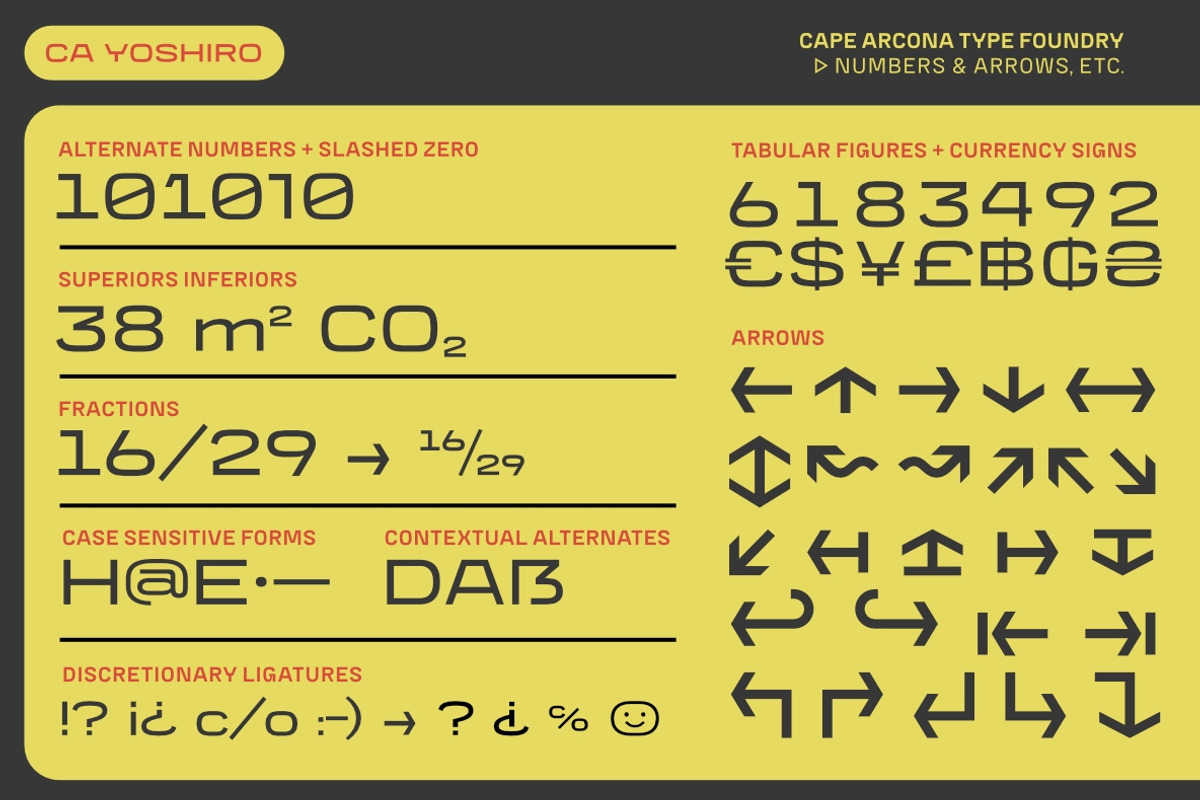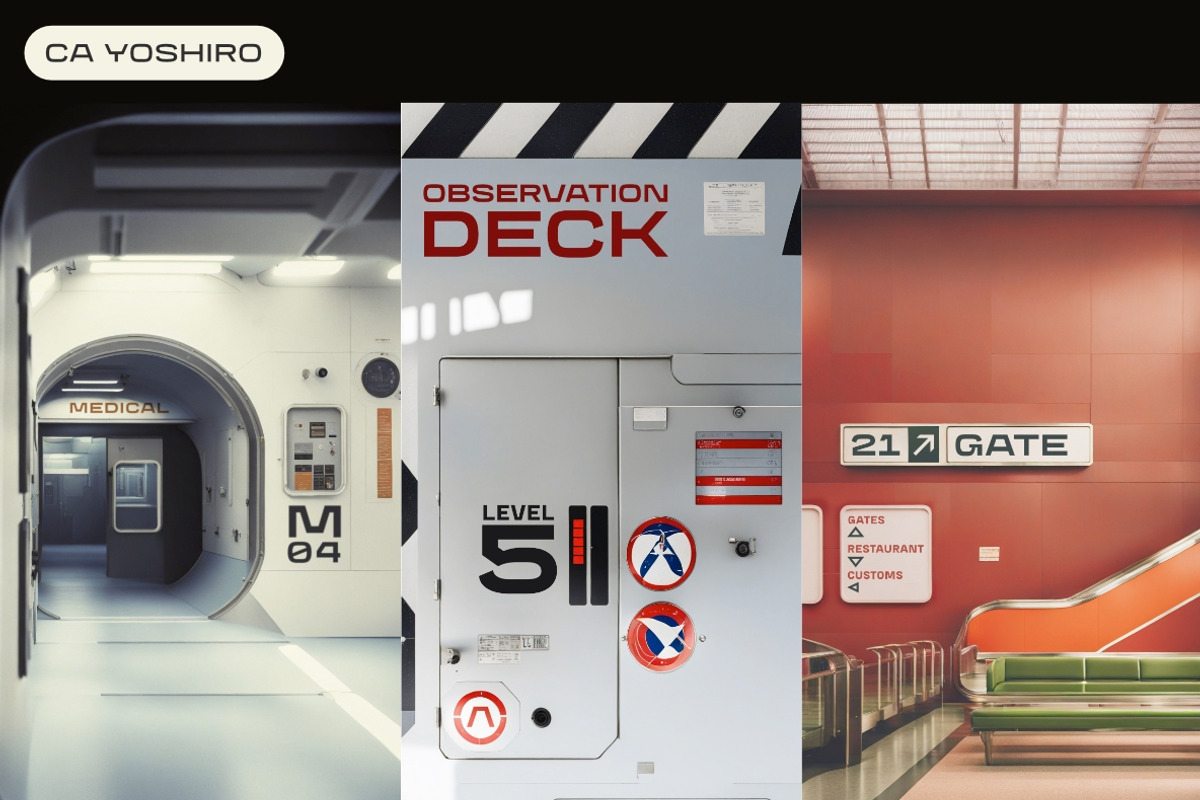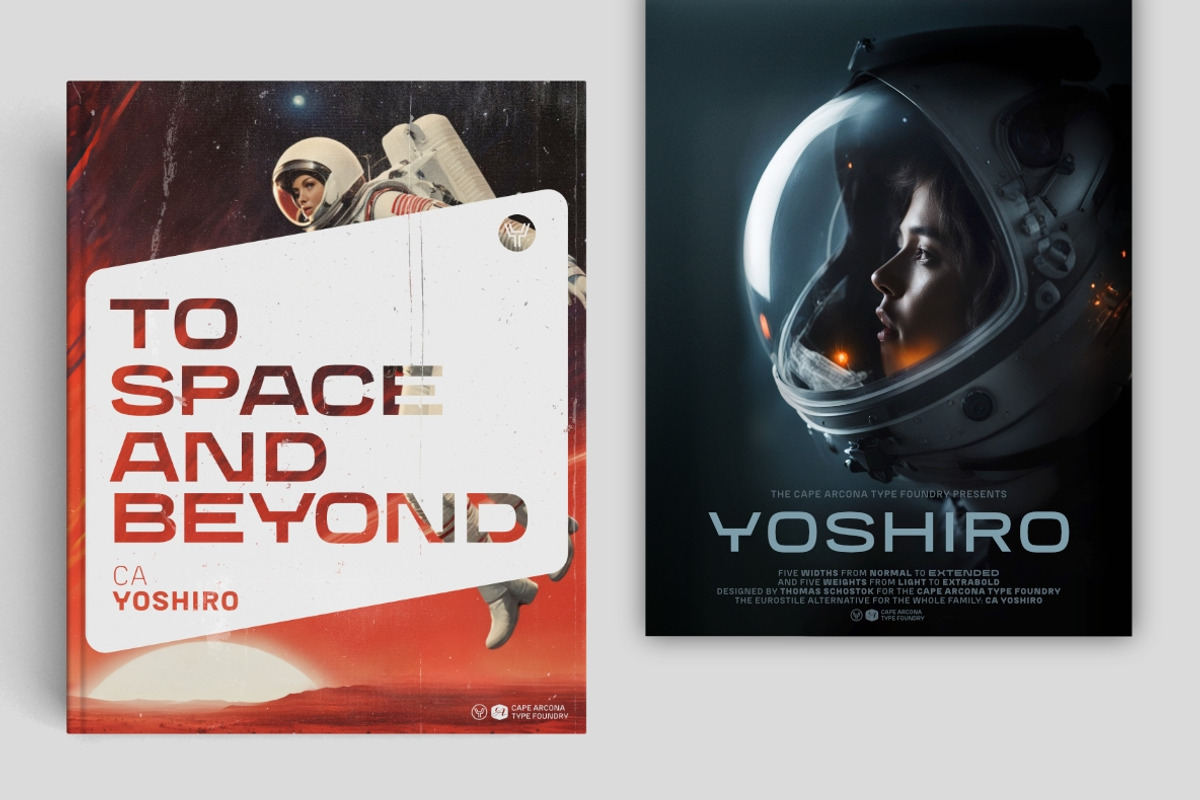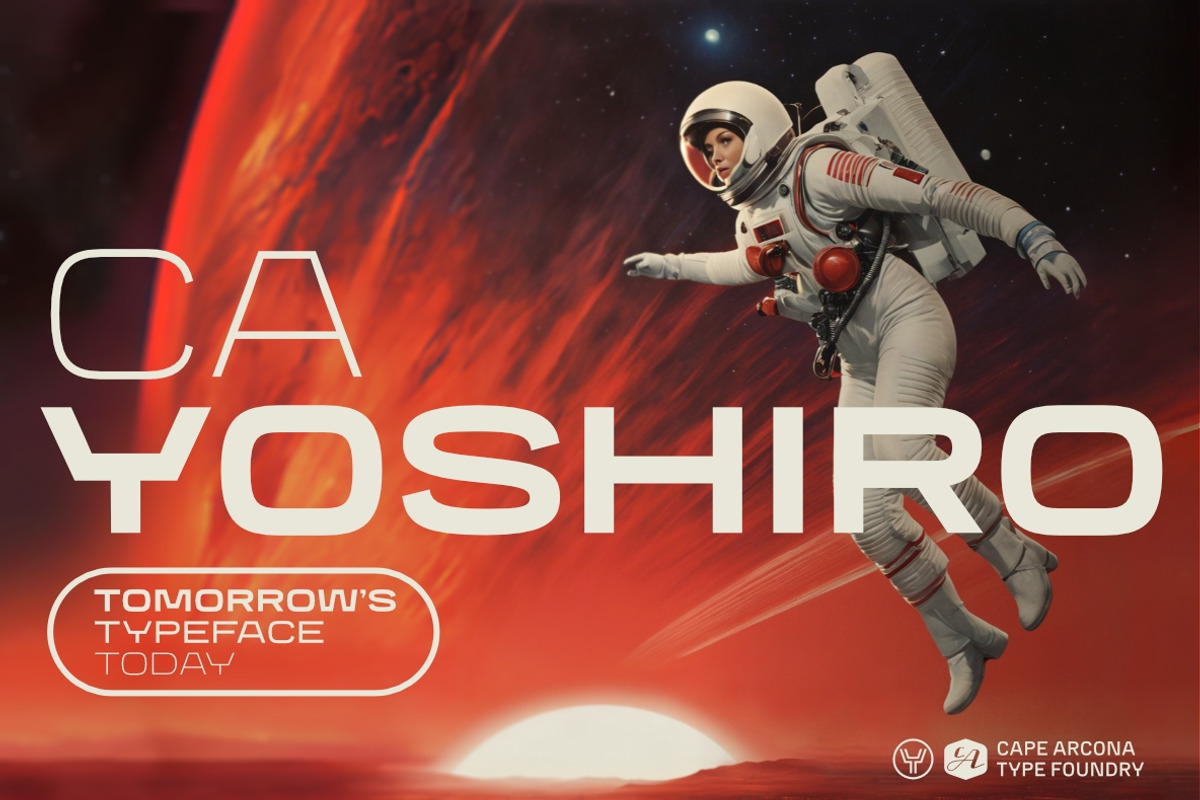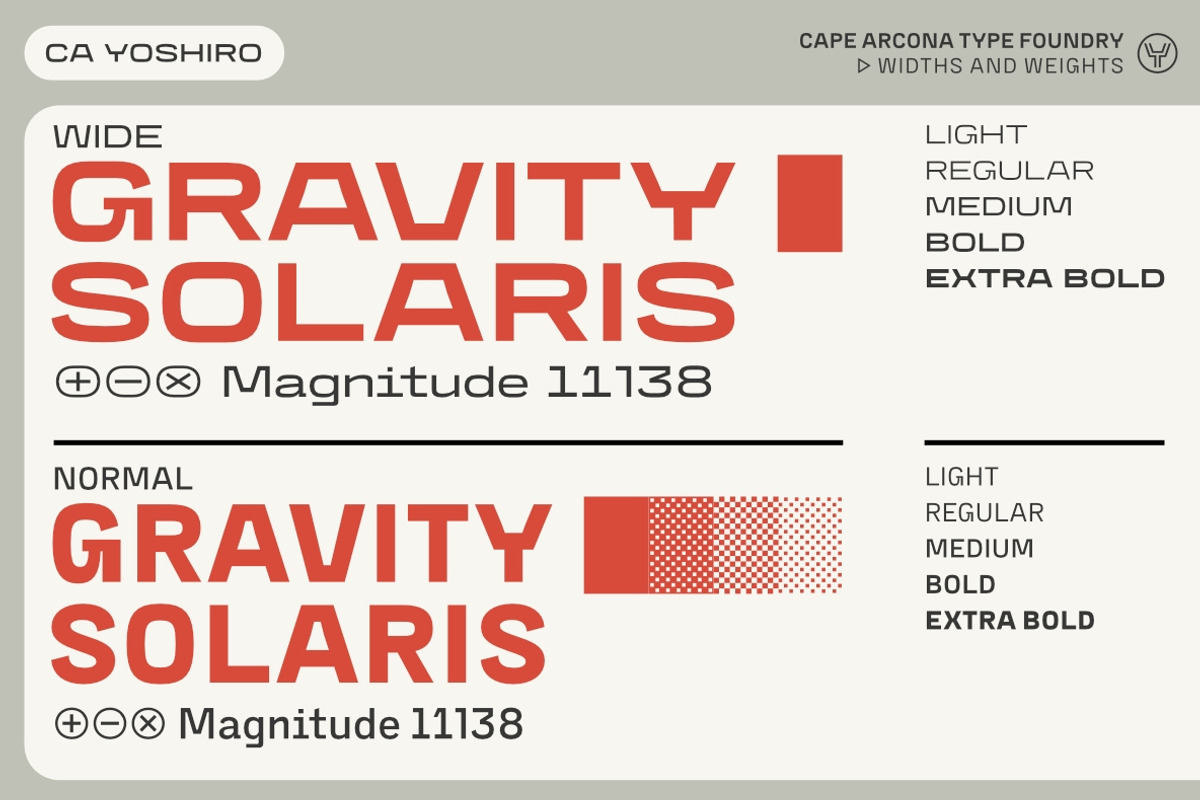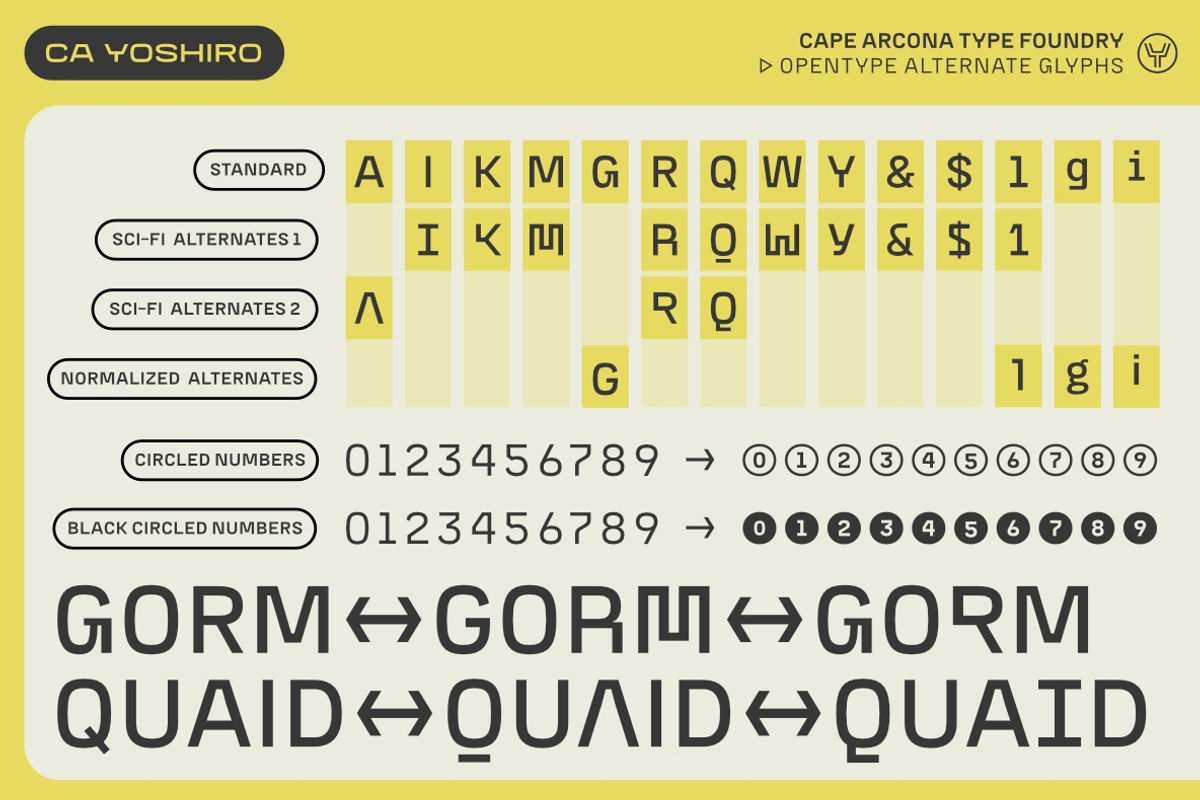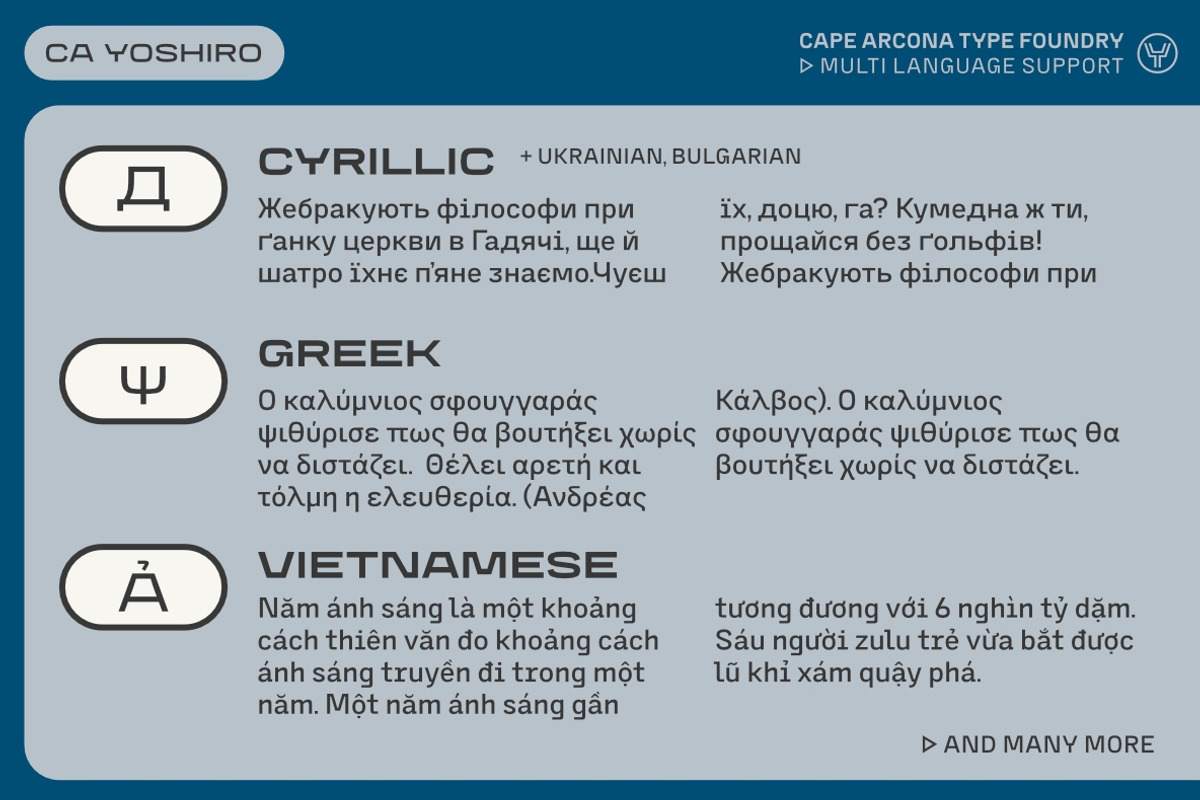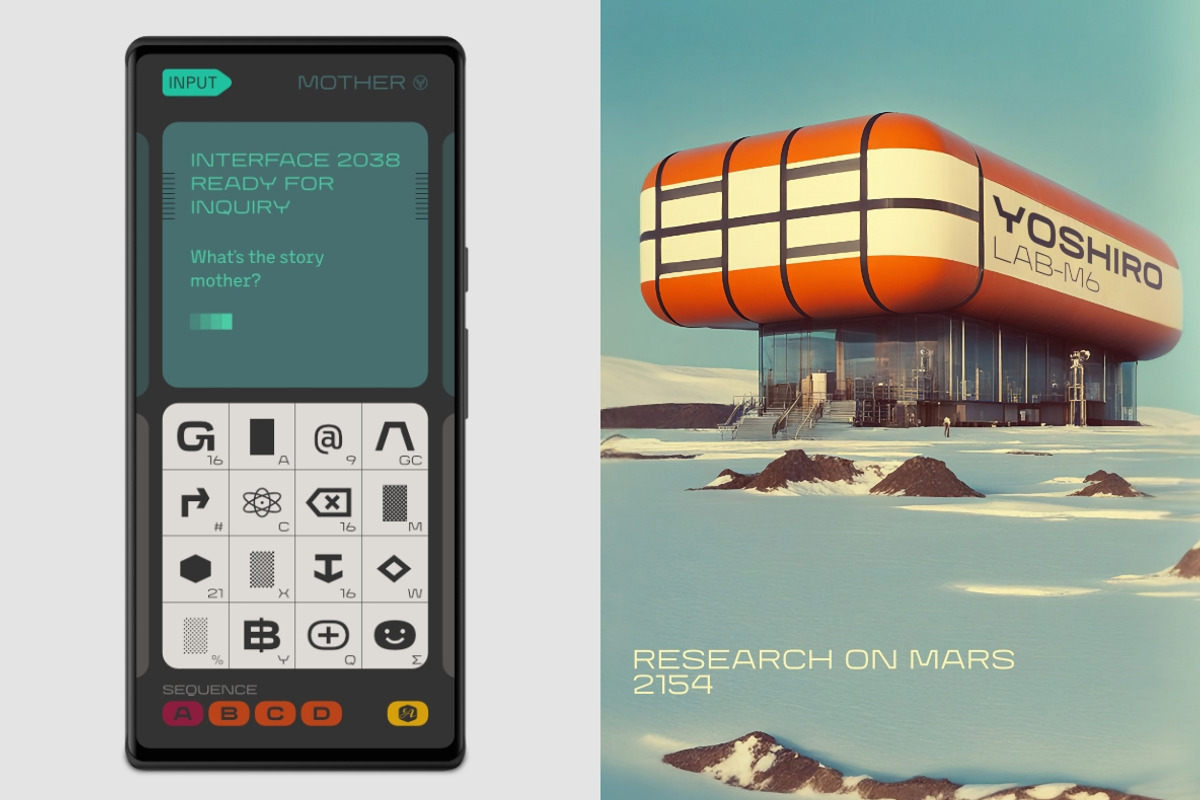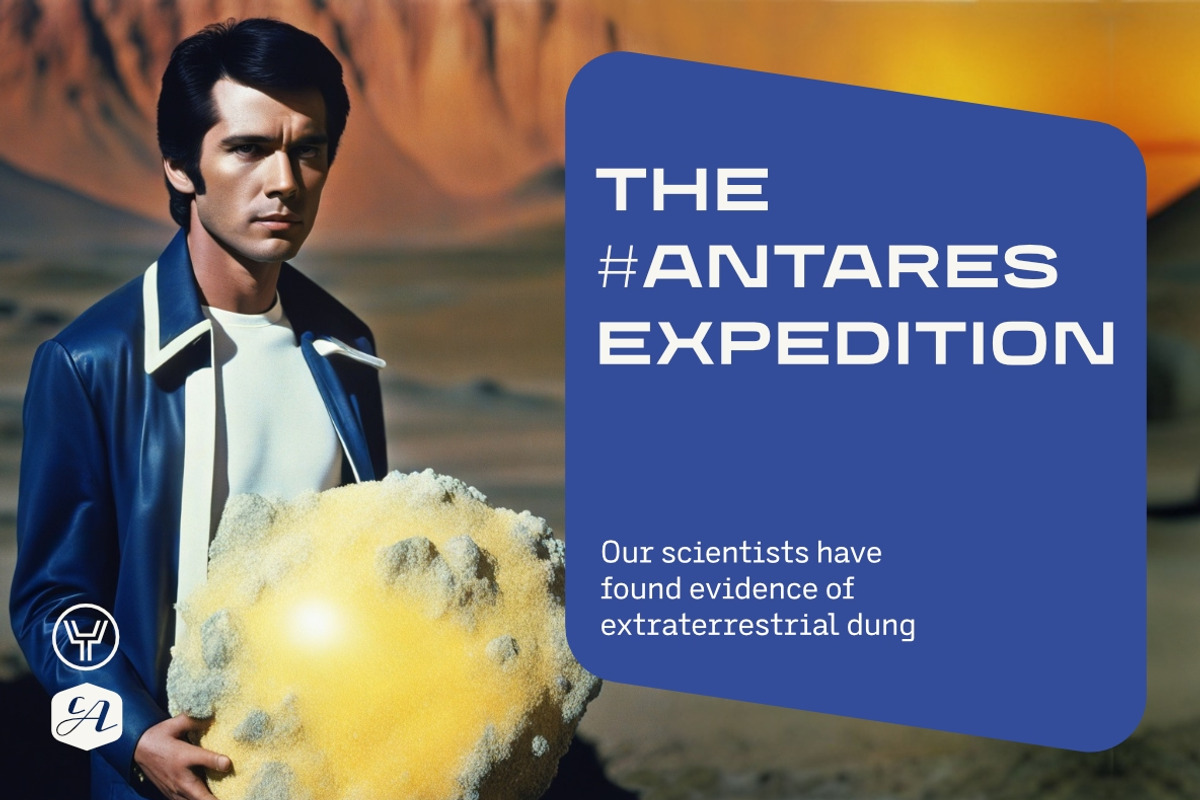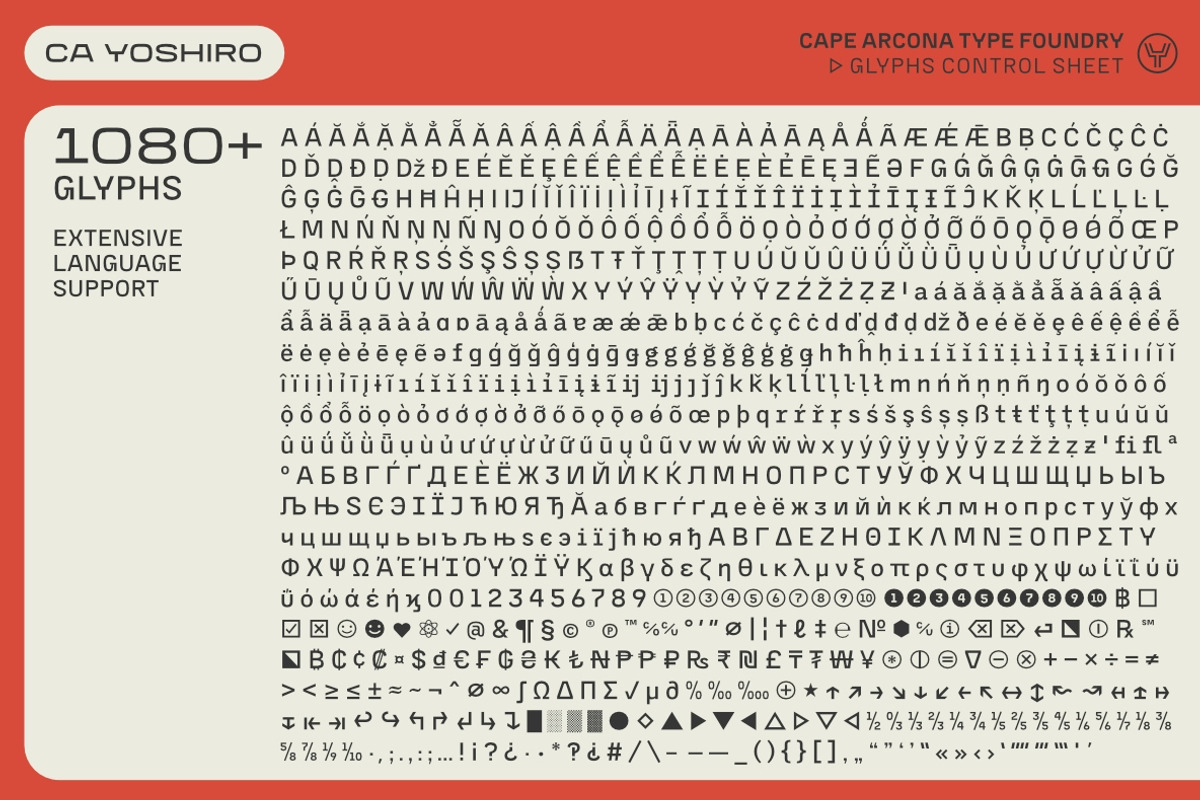
CA Yoshiro
Are you ready to take your sci-fi, action, military films, series or video games to new heights? Introducing CA YOSHIRO, where nostalgia meets contemporary sophistication in your titles and typography. CA YOSHIRO's "wide" style pays homage to the iconic Eurostile typefaces of the 1960s, evoking a sense of familiarity. But it also brings a fresh, modern sci-fi design that seamlessly blends classic charm with cutting-edge aesthetics. This distinctive style promises to engage audiences like never before.
In addition, CA YOSHIRO's "Normal" style is suitable for a variety of projects that require a standard width and a subtle technological touch without immediately implying a sci-fi theme. In addition, CA YOSHIRO subtly echoes the monospace fonts commonly found in computer displays and screens, giving it a unique character reminiscent of programming code and sequences. It's the perfect choice for adding a touch of futuristic flair to your projects, with both sci-fi-inspired and regular styles ideal for body text.